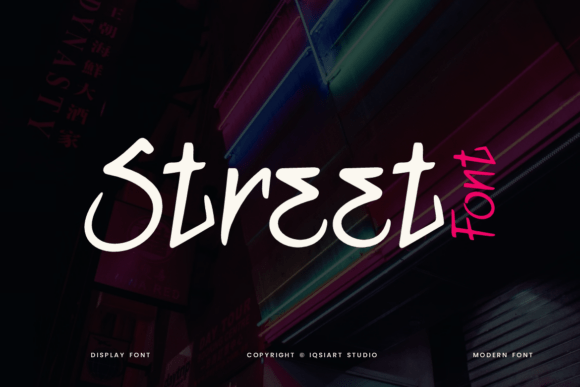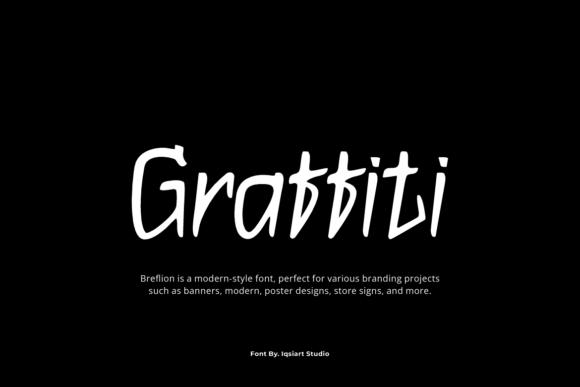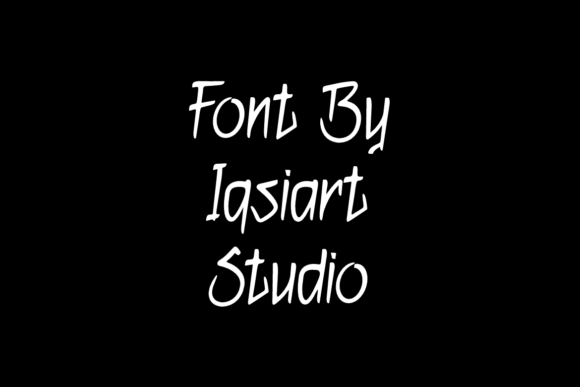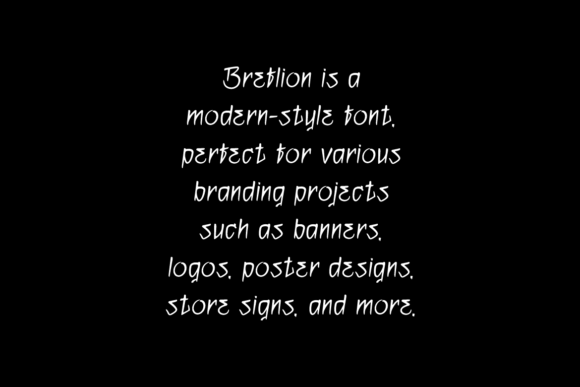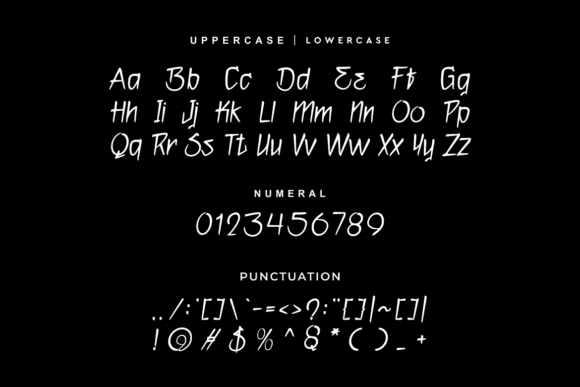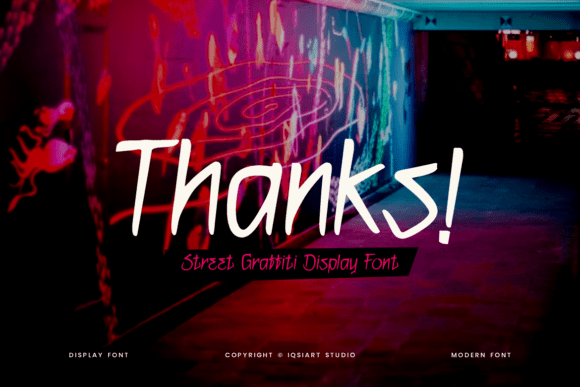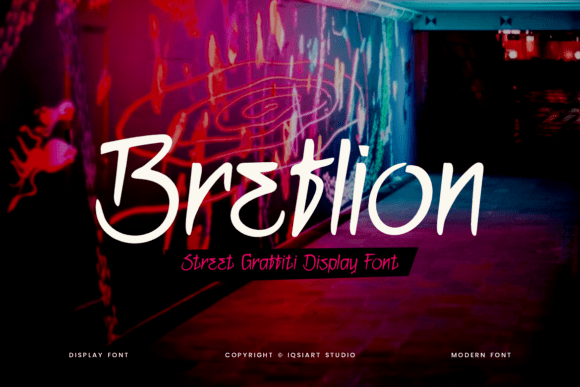
Introducing Breflion Font: The Ultimate Graffiti Display Typeface for Designers and Crafters
Are you tired of using the same old fonts for your design projects? Look no further! Breflion Font is here to revolutionize your creative endeavors with its unique graffiti and authentic display style. This versatile typeface is perfect for designers, crafters, and anyone looking to add a touch of personality to their work.
What is Breflion Font?
Breflion Font is a carefully crafted display typeface that embodies the spirit of graffiti art. Its bold, edgy, and authentic style makes it an ideal choice for a wide range of design needs, from posters and flyers to logos and branding materials. Whether you’re a professional designer or a DIY enthusiast, Breflion Font is sure to make your project stand out.
Key Features of Breflion Font
• Unique Graffiti Style: Breflion Font boasts a one-of-a-kind graffiti style that’s sure to grab attention.
• Authentic Display Typeface: Its authentic display style makes it perfect for headlines, titles, and other design elements.
• Versatile: Breflion Font can be used for a variety of design projects, from print to digital media.
Tips for Using Breflion Font
• Experiment with Sizes: Breflion Font looks great in large sizes, but it can also be used for smaller design elements.
• Play with Colors: The font’s bold style makes it perfect for use with bright, bold colors.
• Mix and Match: Combine Breflion Font with other fonts to create a unique and eye-catching design.